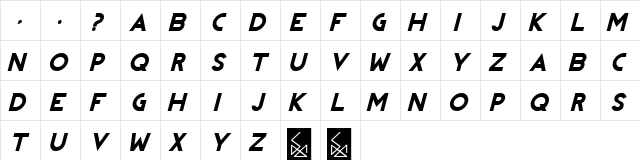
REVOLUTION Italic Italic
| Designer | SAJI JOHNNY KUNDUKULAM |
Design Context for REVOLUTION Italic Typeface
REVOLUTION Italic is a composed and adaptable typeface that performs quietly and consistently across a wide range of design contexts. The slanted form adds forward momentum and visual energy.